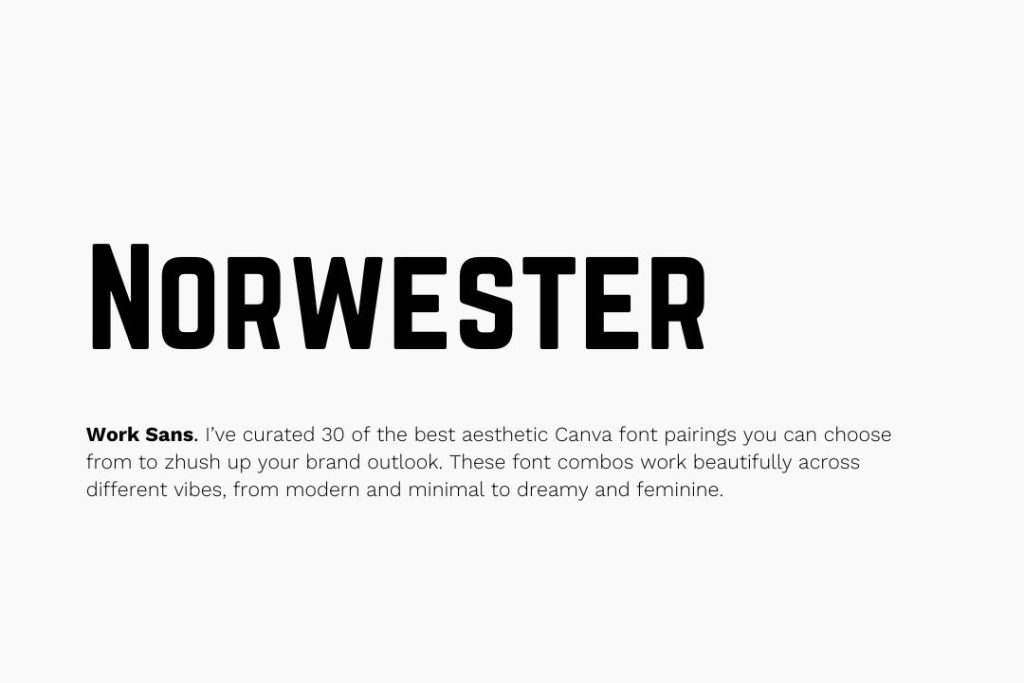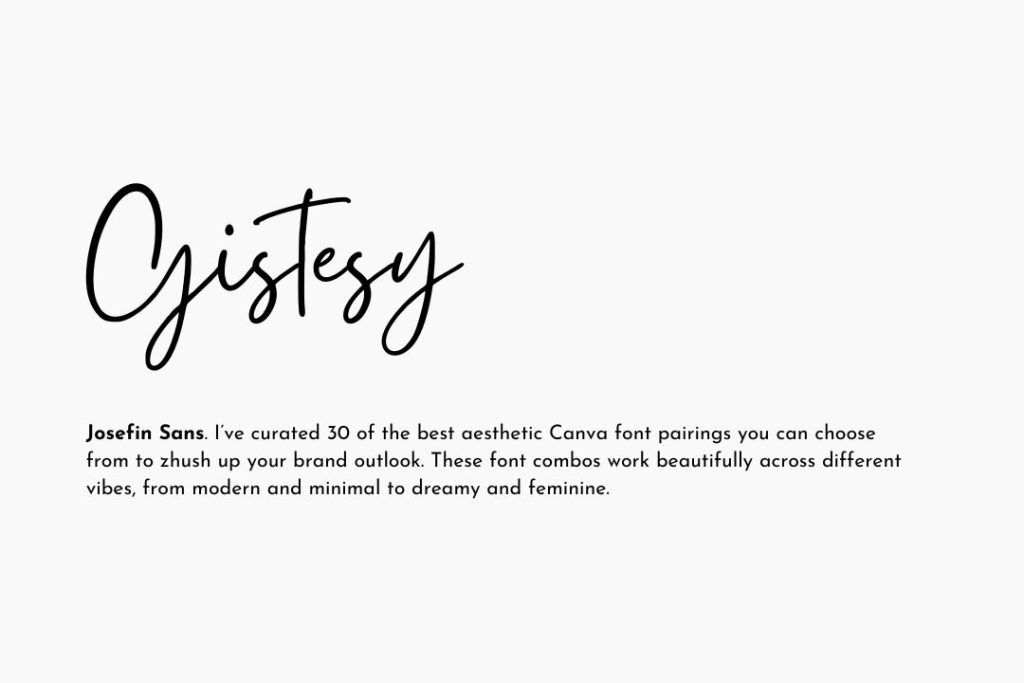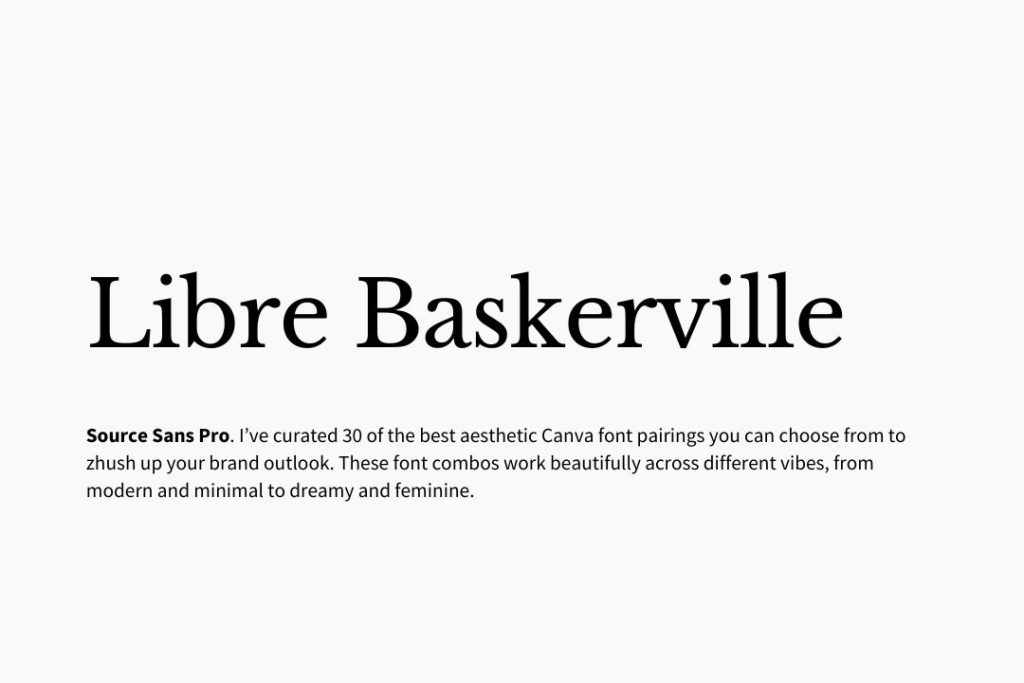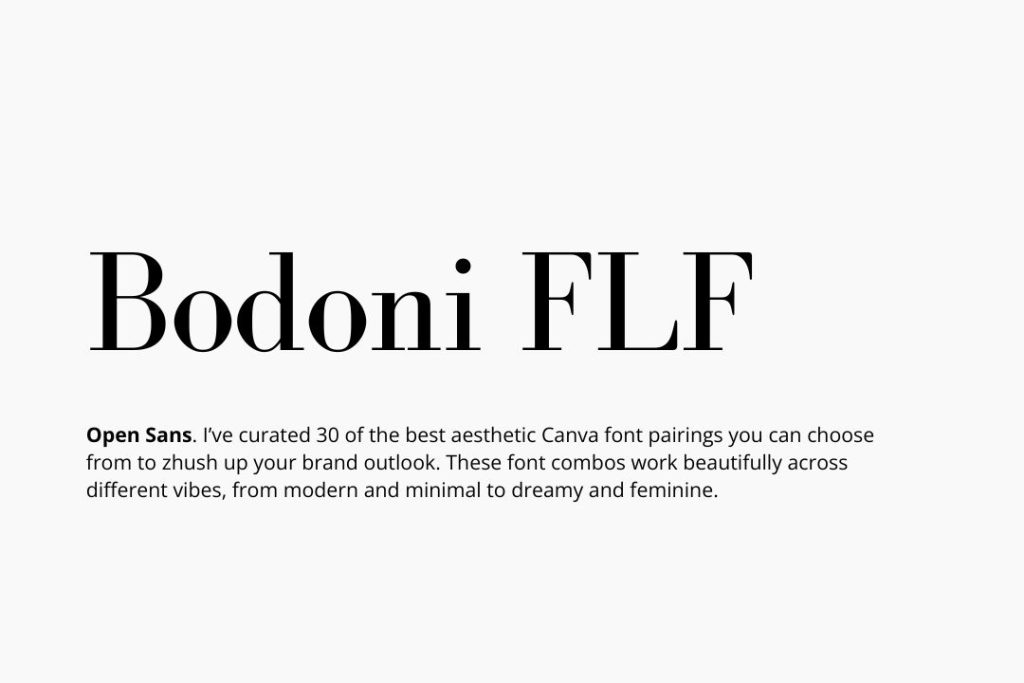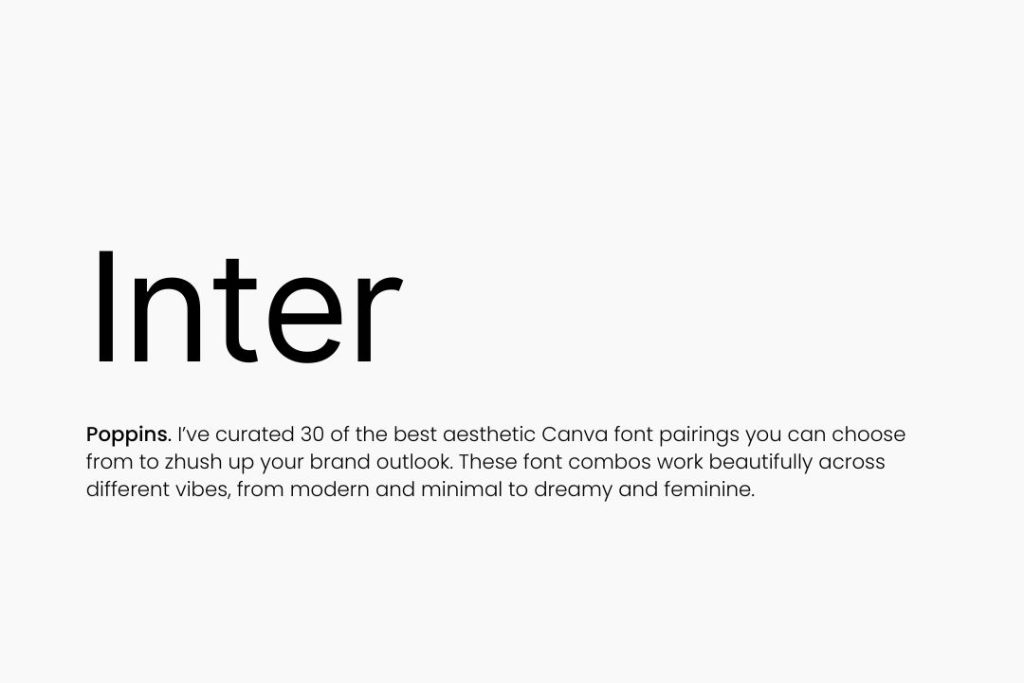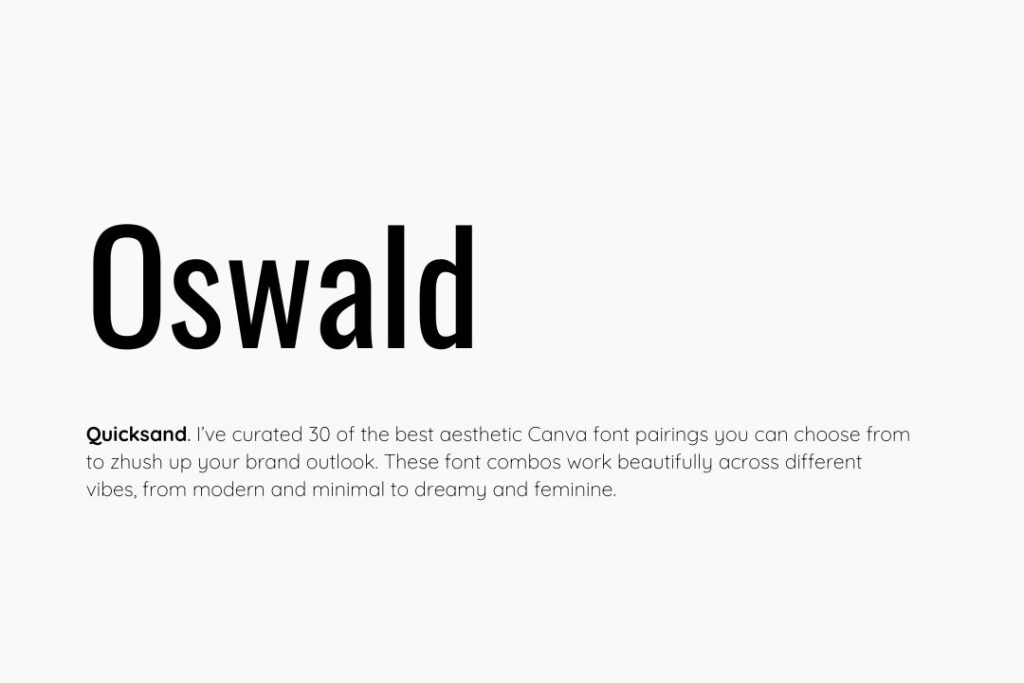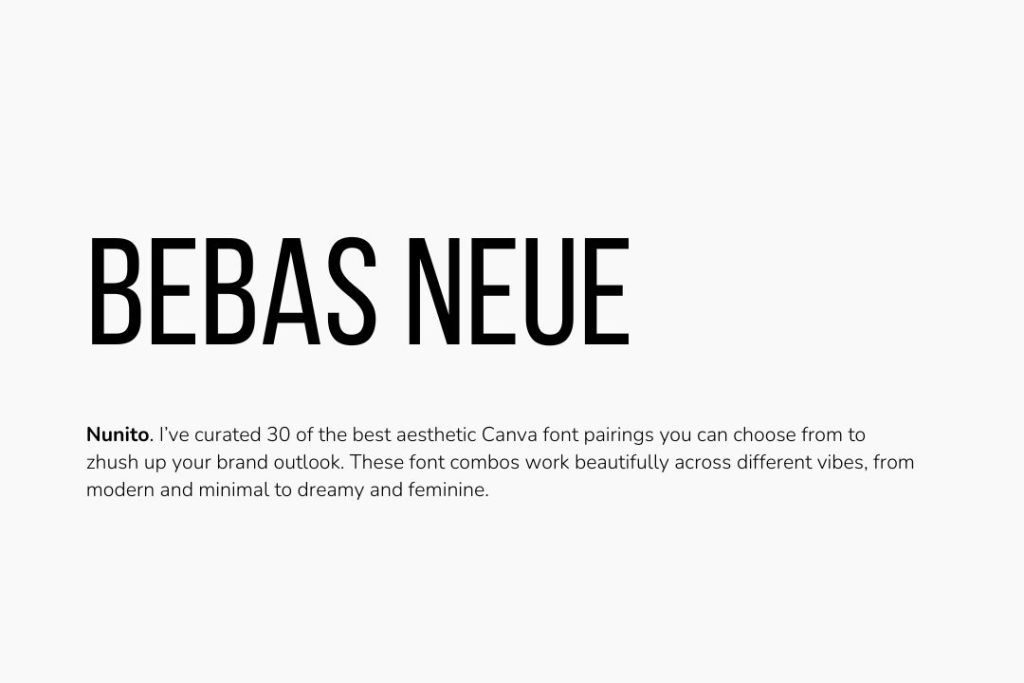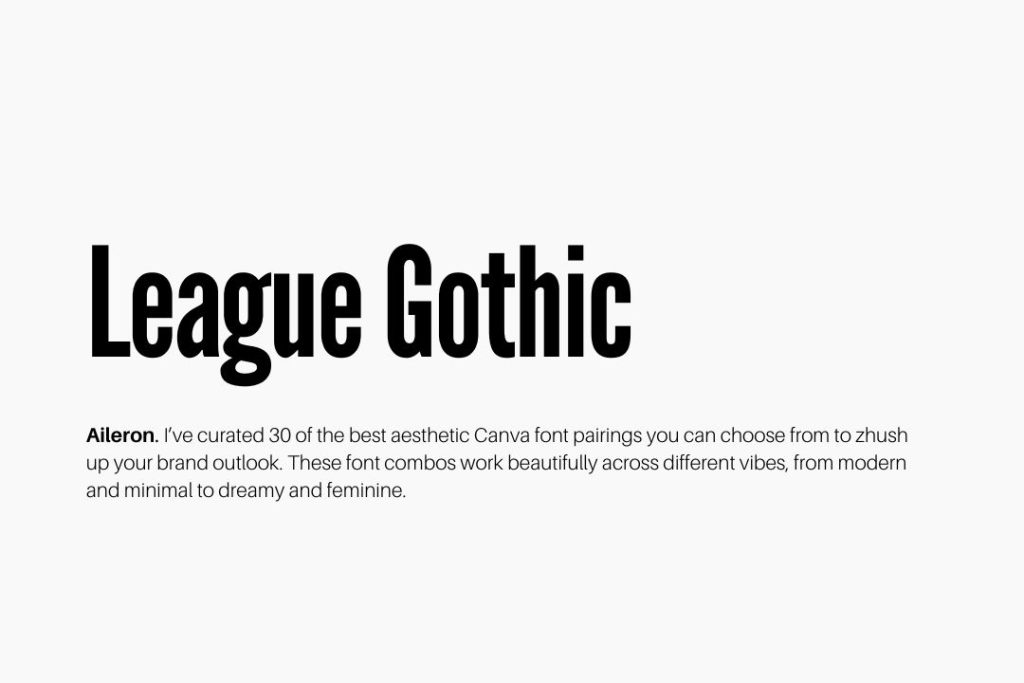
30 Best Canva Font Pairings to Instantly Elevate Your Brand
Looking for the best Canva font pairings that feel effortlessly chic, on-brand, and easy to use? You absolutely need to try this list.
Whether you’re designing Instagram posts, Pinterest pins, lead magnets, or website graphics, the right Canva font combinations can make your content go from meh to magnetic.
But with hundreds of fonts in Canva (and new ones added all the time), it’s easy to get stuck in the font scroll spiral or just stick to a particular pair.
So, I’ve curated 30 best aesthetic Canva font pairings you can choose from to zhush up your brand outlook. These font combos work beautifully across different vibes, from modern and minimal to dreamy and feminine.
Quick Tips for Using Canva Font Pairings
Before we dive in, here are some tips for using Canva font combos like a design pro:
- Contrast is key → Pair a bold headline font with a simple body font.
- Hierarchy matters → Use larger sizes for headers, and keep subtext light and legible.
- Stay consistent → Pick 1–2 main font combos and use them across your brand for a polished, pro look.
Now let’s get into the good stuff.
The Best Aesthetic Canva Font Combinations
Here are the best Canva font pairings to elevate your brand design.
You can use these font duos for:
- Website design
- Social media graphics
- Lead magnets & PDFs
- Pinterest pins
- Digital products
Whimsical & Dreamy Font Pairings
If your brand has a soft, romantic, or whimsical vibe, these are the Canva font combinations for you. Think lifestyle bloggers, coaches, wedding creatives, and wellness brands. These pairings bring a dreamy elegance without sacrificing clarity.
1. Gistesy + Josefin Sans
Elegant script meets clean minimalism. Gistesy brings in handwritten flair with a flowing, delicate script, while Josefin Sans anchors it with clean simplicity. Perfect for Instagram quotes, service intros, or sales slides that need a little extra charm.
2. Amsterdam Two + Open Sans
Amsterdam Two is a classic cursive with editorial vibes, and Open Sans offers a modern sans-serif contrast that keeps everything readable. Use this combo for Pinterest pins, blog banners, or email headers.
3. Marck Script + Montserrat Light
Marck Script adds personality with a playful script, while Montserrat Light balances it with crisp geometric edges. This is ideal for brands that want friendly and stylish—and not too frilly.
4. Playlist Script + Raleway
Playlist Script has a hand-brushed look that screams “effortlessly creative.” Raleway is clean and minimal, making it the perfect partner. Try this for Reels covers, inspirational quotes, or opt-in graphics.
5. Daydream + Avenir
Daydream is romantic and flowing, while Avenir brings structure and professionalism. Together, they feel high-end and grounded—great for digital journals or self-development guides.
Minimal & Professional Font Pairings
These Canva font combos are ideal for businesses that want to keep things polished and refined. They’re clean, modern, versatile, and perfect for service-based entrepreneurs, tech brands, and digital creators who value white space and intentional design.
6. League Spartan + Lato
League Spartan is bold and authoritative, while Lato offers a softer, rounded sans-serif feel. Together, they’re powerful for headlines and easy to scan for subtext—ideal for sales pages or lead magnet covers.
7. Anton + Roboto
Anton is all caps and in-your-face—perfect for grabbing attention. Roboto, one of Canva’s most legible fonts, smooths things out. This combo is ideal for big announcements or minimalist branding.
8. Libre Baskerville + Source Sans Pro
A high-contrast serif (Libre Baskerville) paired with a neutral sans-serif (Source Sans Pro) creates a timeless, bookish vibe. Use this duo for blog graphics, printables, or newsletter titles.
9. Bodoni FLF + Open Sans
Bodoni’s dramatic flair pairs beautifully with the no-nonsense readability of Open Sans. This one screams editorial—great for fashion brands or thought leadership posts.
10. Inter + Poppins
Inter is clean with a touch of elegance, while Poppins brings round, modern shapes. Together, they’re polished but never stiff—ideal for websites and long-form content. It’s my website’s font combination.
Bold & Modern Canva Font Pairings
If your vibe is sleek, edgy, or attention-grabbing, these Canva font combinations will give your graphics major impact. These are great for creators, marketers, and online brands who want to stand out in a scroll-heavy world.
11. Oswald + Quicksand
Oswald is tall and commanding—great for headers. Quicksand softens things with rounded letterforms, creating balance. This pairing is perfect for landing pages or email promo graphics.
Use These Best Canva Font Pairings for Your Designs
Your font choice speaks before your words do.
When your visuals look clean, intentional, and on-brand, your content stands out—and your audience takes you seriously.
With these 30 Canva font combos, you’ve got a head start. Pick 2–3 that vibe with your brand, stick with them consistently, and watch your content aesthetic glow up instantly.